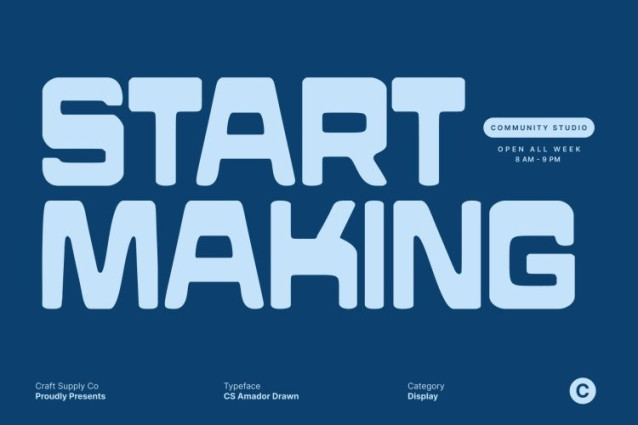
CS Amador Drawn Font
CS Amador Drawn Font This is a reverse contrast sans serif font that fuses masculine confidence with stylish contemporary design. Defined by bold shapes and modular geometry, this typeface delivers a powerful visual statement. The reverse contrast structure creates instant distinction, while the drawn texture introduces subtle organic character, adding depth without reducing its assertive presence.
Distinctive Character with Modern Expression
The reverse contrast detailing creates unexpected rhythm and balance, transforming familiar letterforms into something daring and fresh. Strong vertical strokes and confident proportions evoke industrial precision, while refined curves and hand-drawn nuances soften the structure with modern elegance. The result is a typeface that feels bold, balanced, and unmistakably contemporary.
Perfect for Branding, Posters, and Editorial Design
This font excels in branding systems, editorial layouts, and promotional materials where visual strength is essential. Its commanding presence makes it especially effective for logos, titles, and headlines that aim to communicate confidence, energy, and innovation.
Versatile for Modern Creative Projects
From fashion and technology to contemporary culture and lifestyle branding, this font adapts effortlessly across creative fields. Its fusion of masculine form, reverse contrast design, and modern style provides a strong foundation for distinctive identities and bold campaigns ensuring your message stands out and leaves a lasting impression.